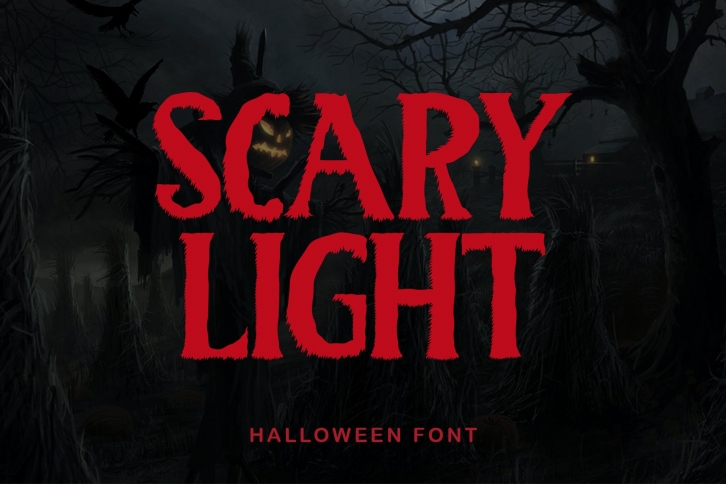
Scary Light is a great font that was designed by yogaletter6. Imagine the amount of combinations you can create using this font! The archive is 14.66 MB and it was released on August 3, 2021. Scary Light looks beautiful on wedding invitations, greeting cards, logos, posters, labels, t-shirt designs, logos, business cards and is perfect for use in ink or watercolor works, fashion, magazines, packaging and food menus, children's books and more!